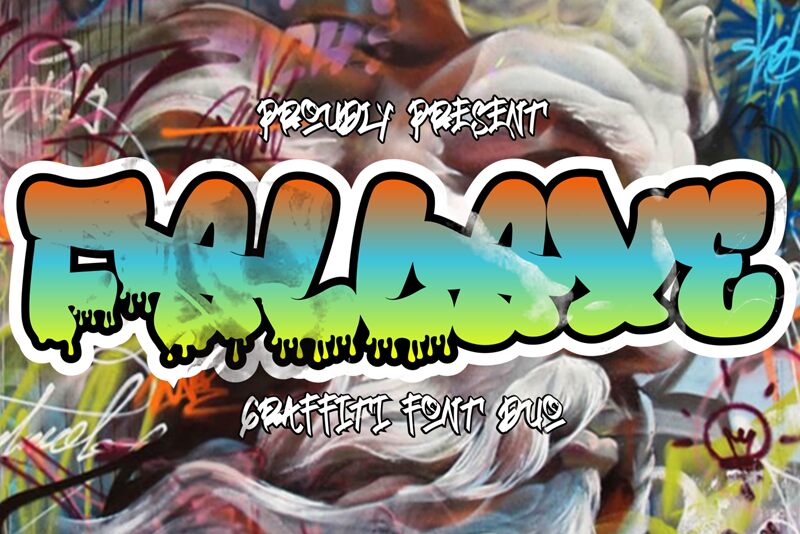
Fallaxe (Drip) Graffiti
Fallaxe (Drip) Graffiti Font by Si Panji is a bold and edgy typeface, perfect for street art or hip-hop inspired designs. The graffiti style of this font adds a rebellious touch to any project, from album covers to flyers and posters. The thick strokes and dripping effects create an eye-catching visual impact, making it suitable for logos, headlines, or any design that needs to stand out. Fallaxe (Drip) Graffiti Font is also ideal for streetwear brands, skateboard companies or any business looking for an urban vibe. Unleash your creativity with this vivid and dynamic font!